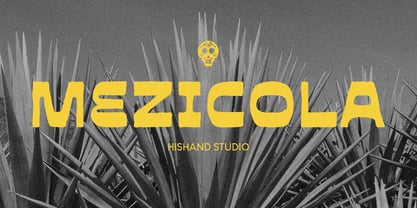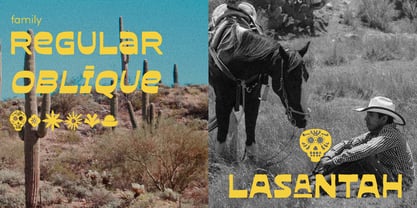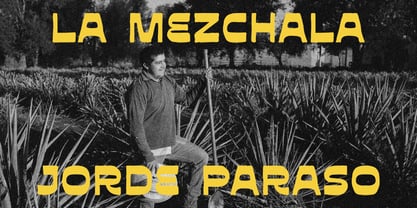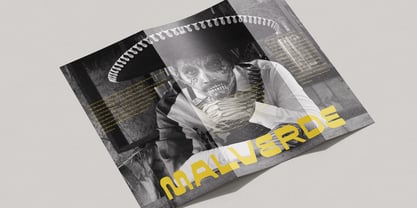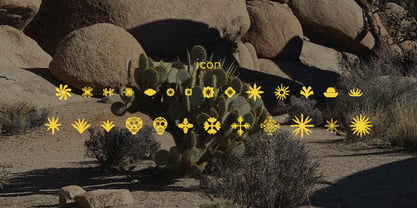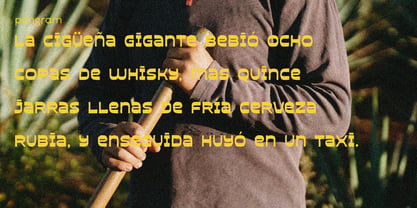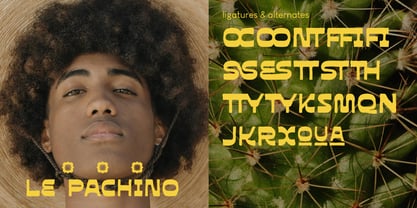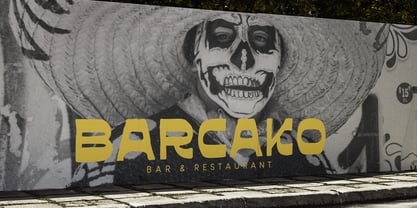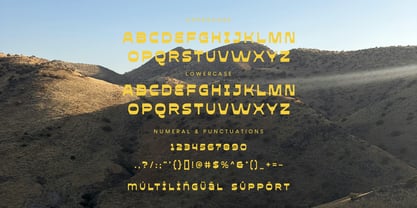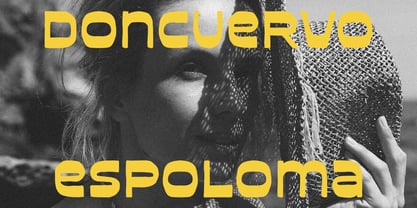
Mezicola
Mezicola is a bold, heavy display font that grabs your attention the moment you see it. Inspired by old industrial signs and vintage graphic design, its thick and wide letters were made to stand out in any layout. Every character has a strong, blocky shape with flat edges and even strokes, giving it a solid and powerful look, almost like it was stamped onto the page. But despite its toughness, the font still has its own unique character and charm that keeps it feeling interesting rather than boring. Mezicola works best when used big, on posters, album covers, logos, and magazine headlines where you want people to stop and look. When placed over rough textures or warm earthy colors, it brings a gritty yet classic feel that looks both retro and modern at the same time.
Complete with :
- ligatures
- alternates
- regular
- oblique
- icon
- kerning
- multilingual support